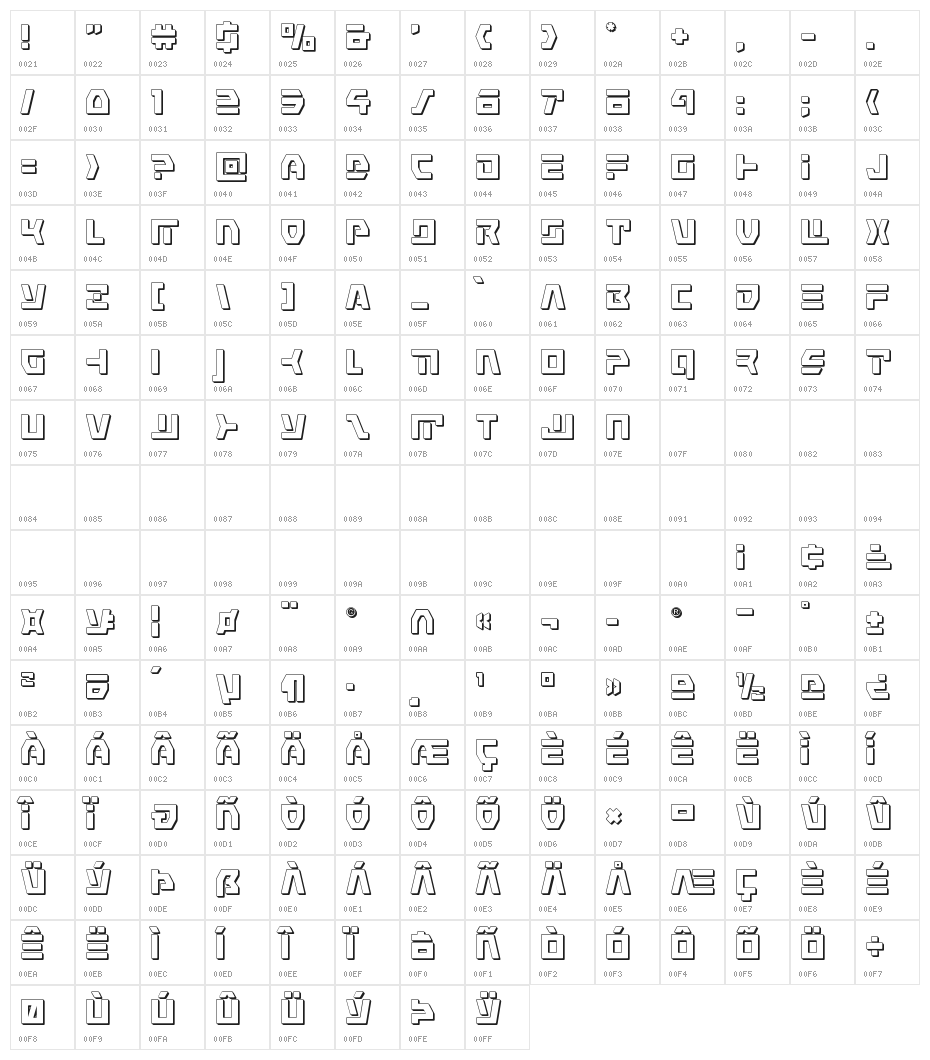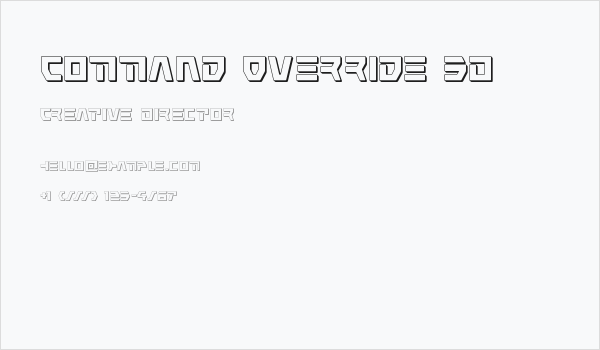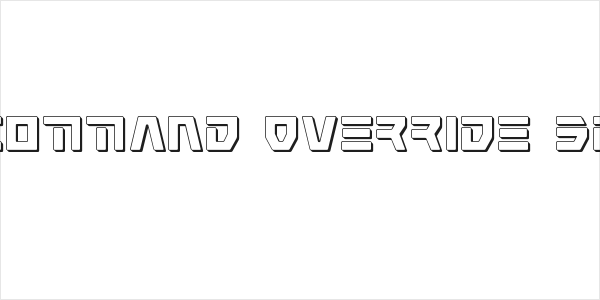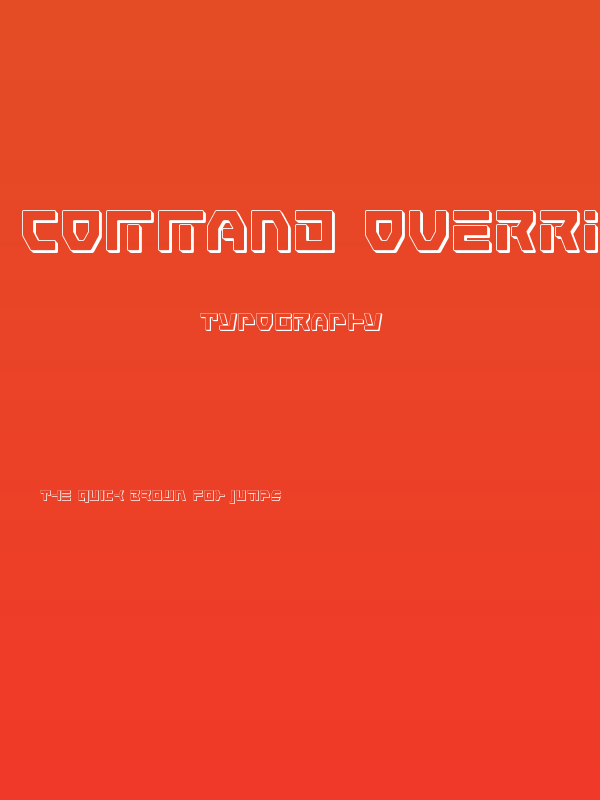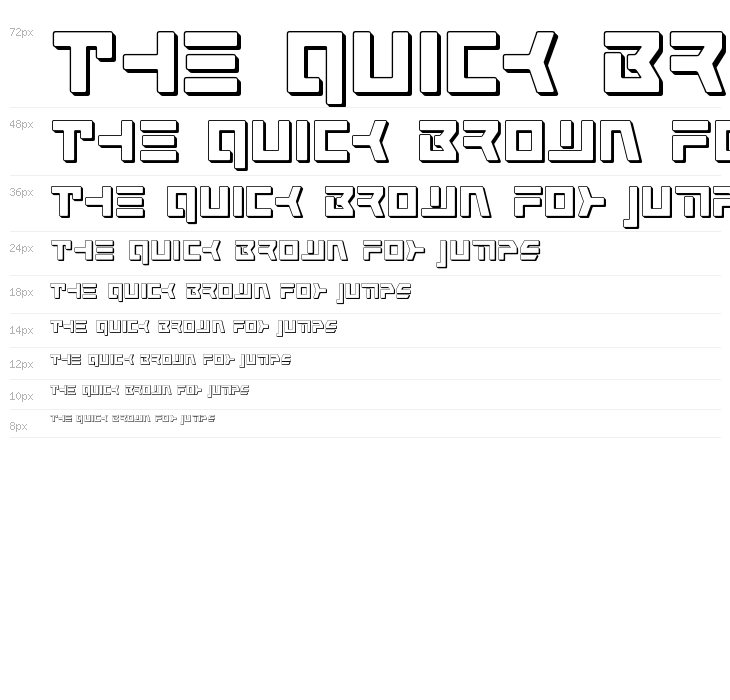
Command Override 3D Font
Command Override 3D Description
This font features a bold, futuristic design with a three-dimensional effect that gives it a unique, standout appearance. The characters are constructed with thick, angular lines and a hollow center, creating a sense of depth and dimension. This style is reminiscent of digital or sci-fi themes, making it ideal for projects that require a modern and technological aesthetic. The uppercase and lowercase letters maintain a consistent geometric structure, while the numbers and special characters follow the same design principles, ensuring uniformity across all elements.
Proposed ProjectsIdeal for sci-fi movie posters, video game titles, tech company logos, and digital art projects.